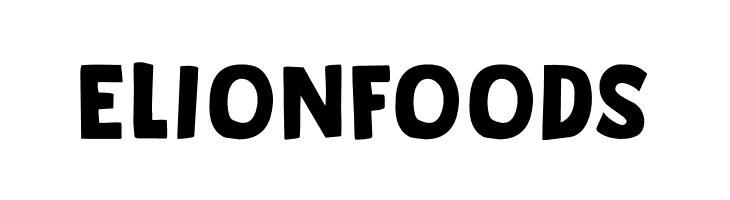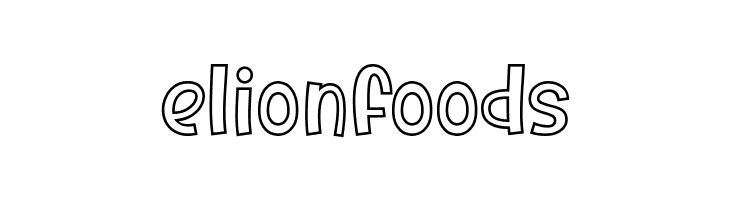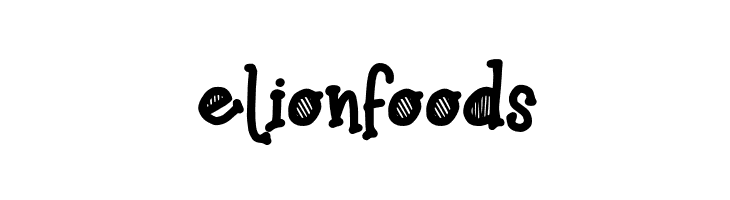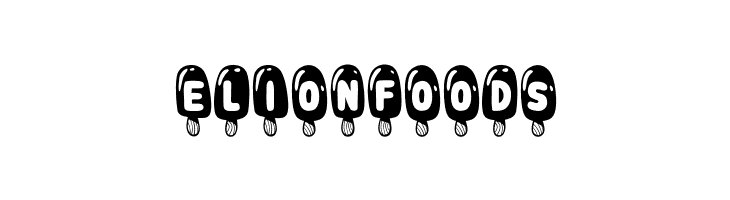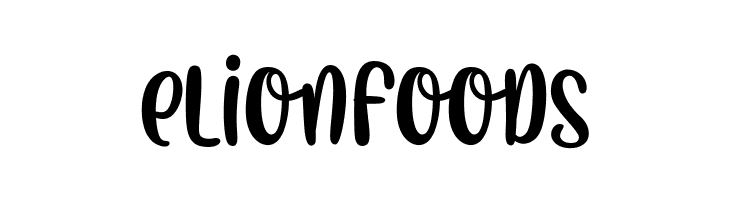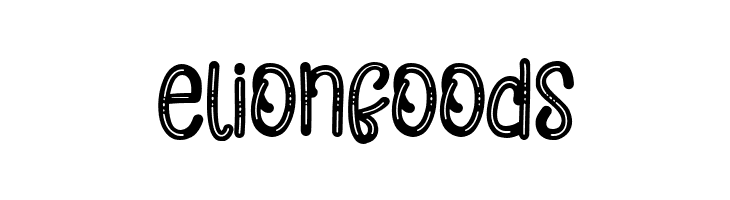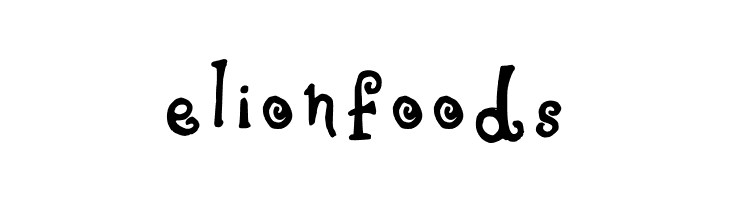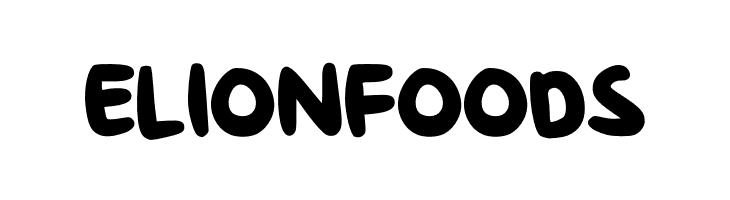
A playful, bold font with a hand-drawn, whimsical style.
A playful, outlined font with a hand-drawn, whimsical style.
A whimsical decorative font with star motifs integrated into each character.
A playful, hand-drawn font with bold, rounded characters and unique fill patterns.
A playful, ice cream-themed decorative font with bold, rounded characters.
A playful, hand-drawn font with bold, rounded characters.
A playful, hand-drawn font with bold outlines and rounded edges.
A playful, spooky font with quirky, irregular letterforms and Halloween motifs.
A bold, playful font with a whimsical, hand-drawn style.
A bold, playful font with rounded, hand-drawn characters.